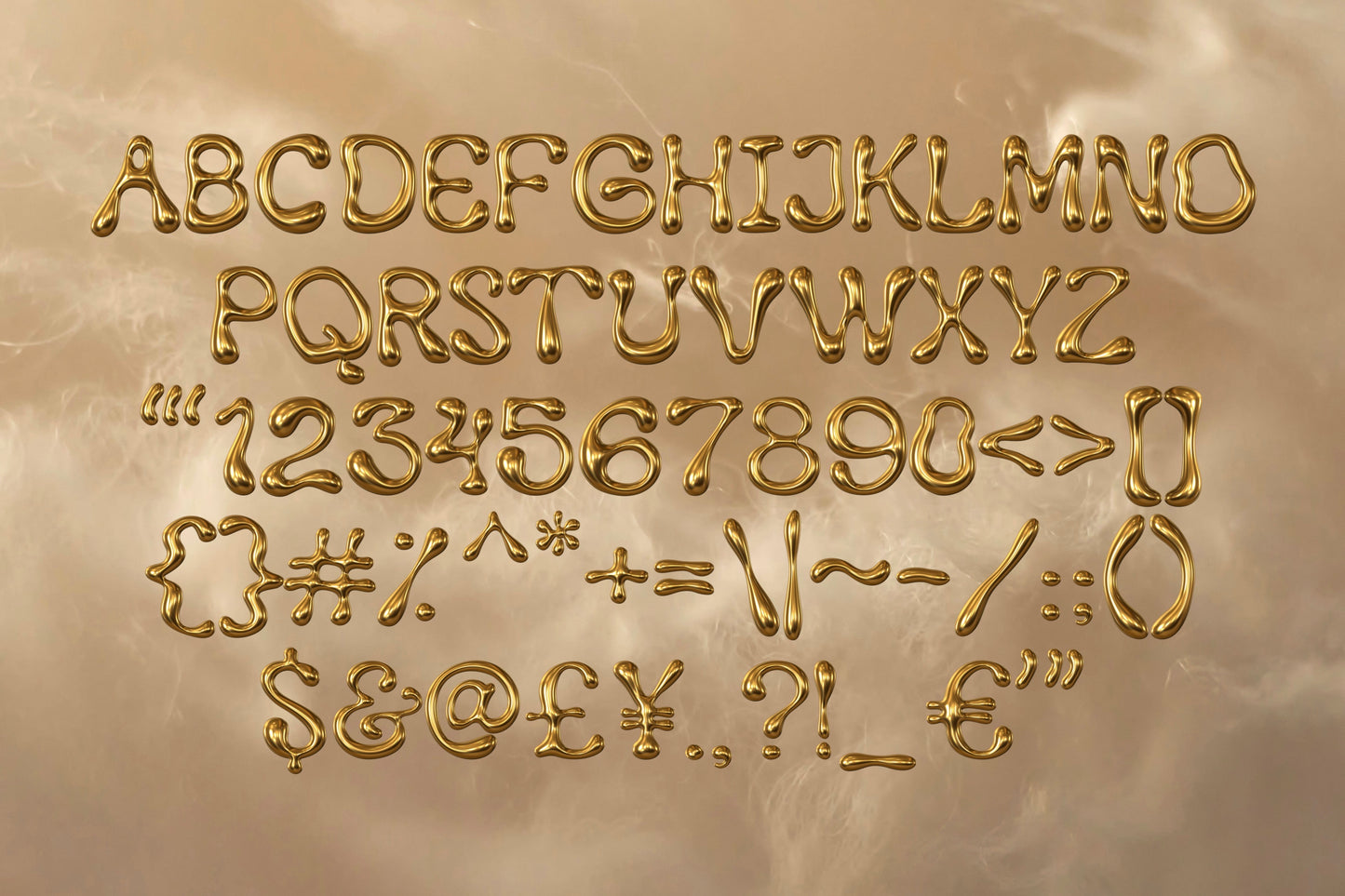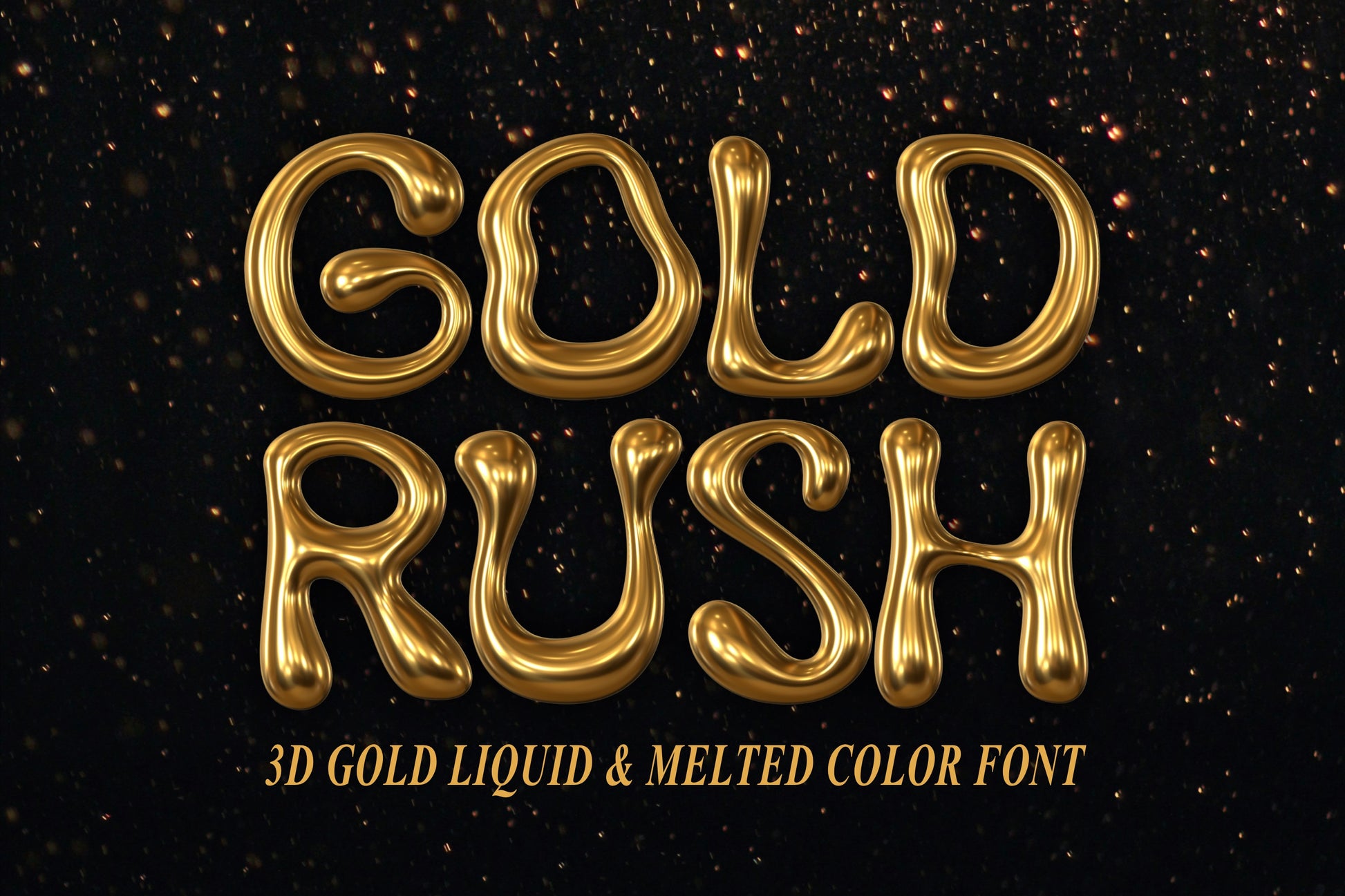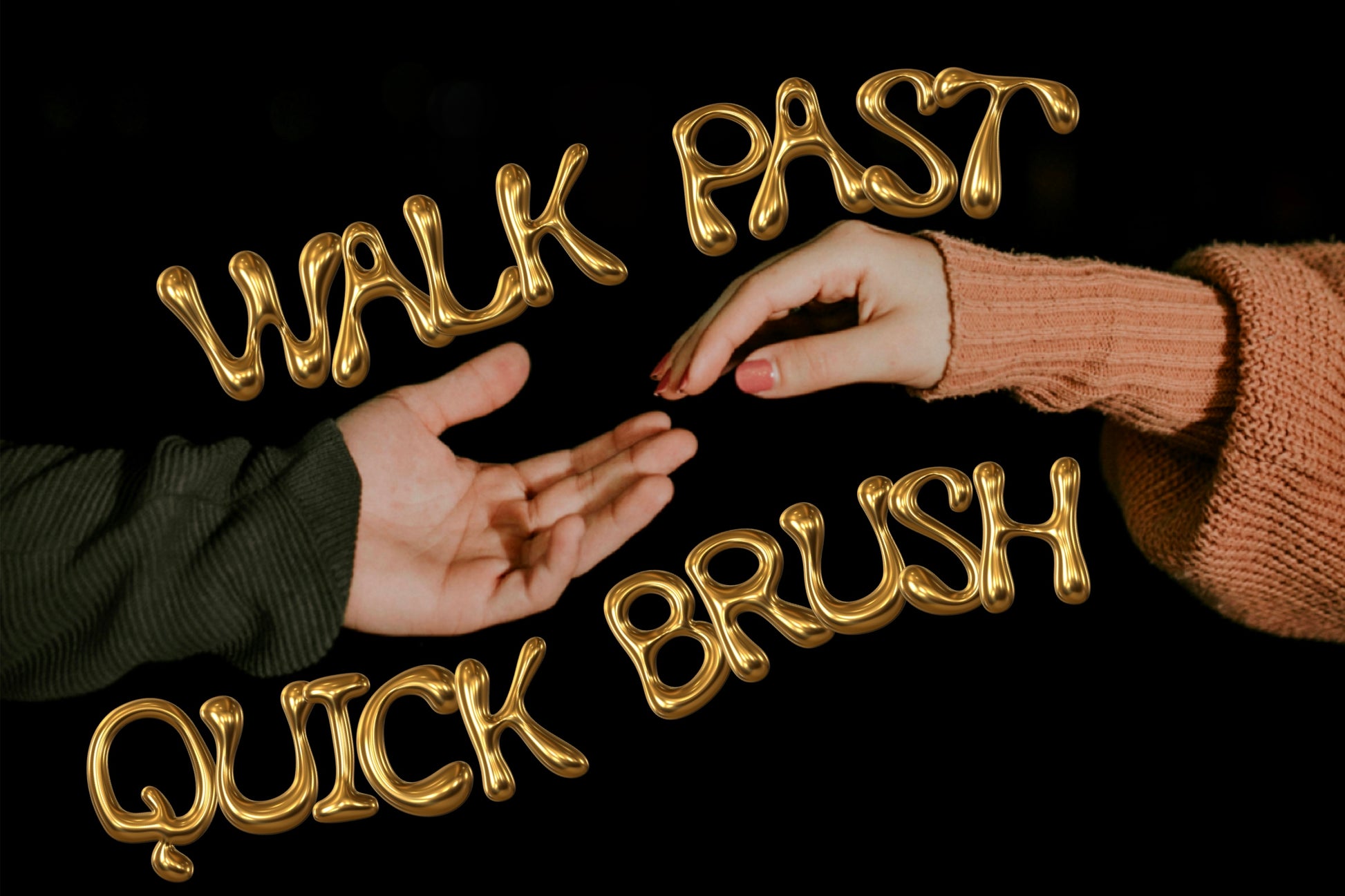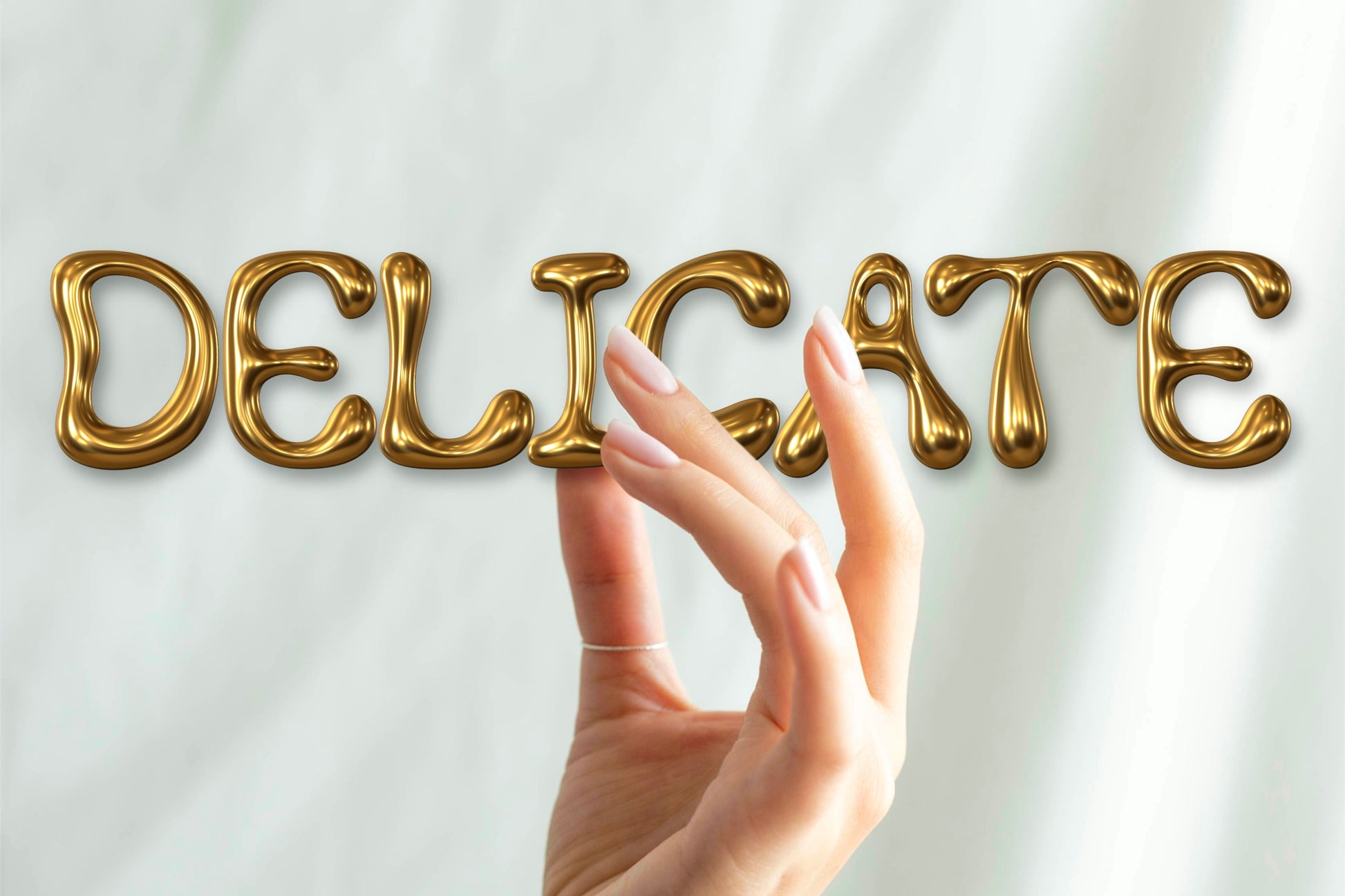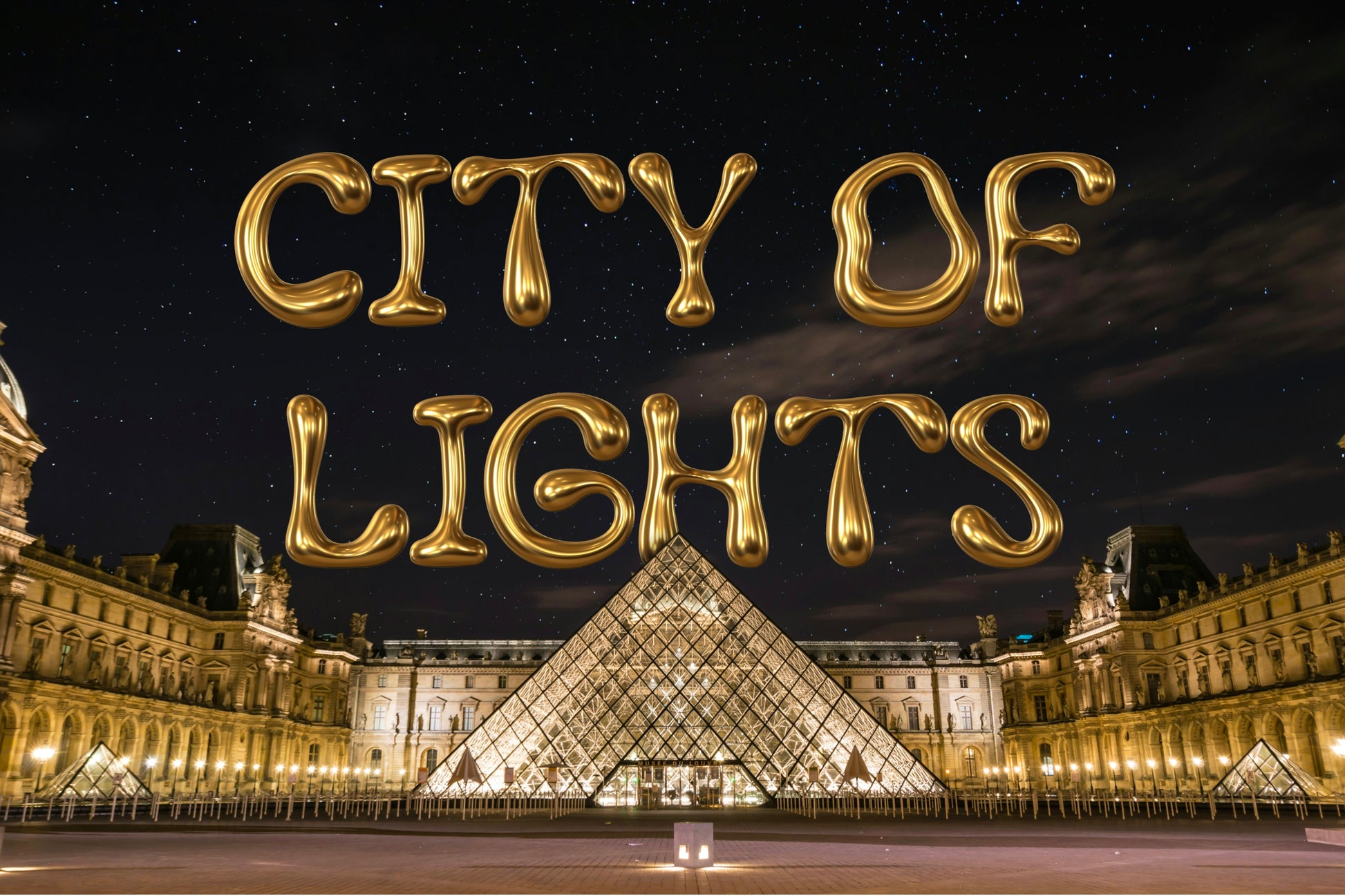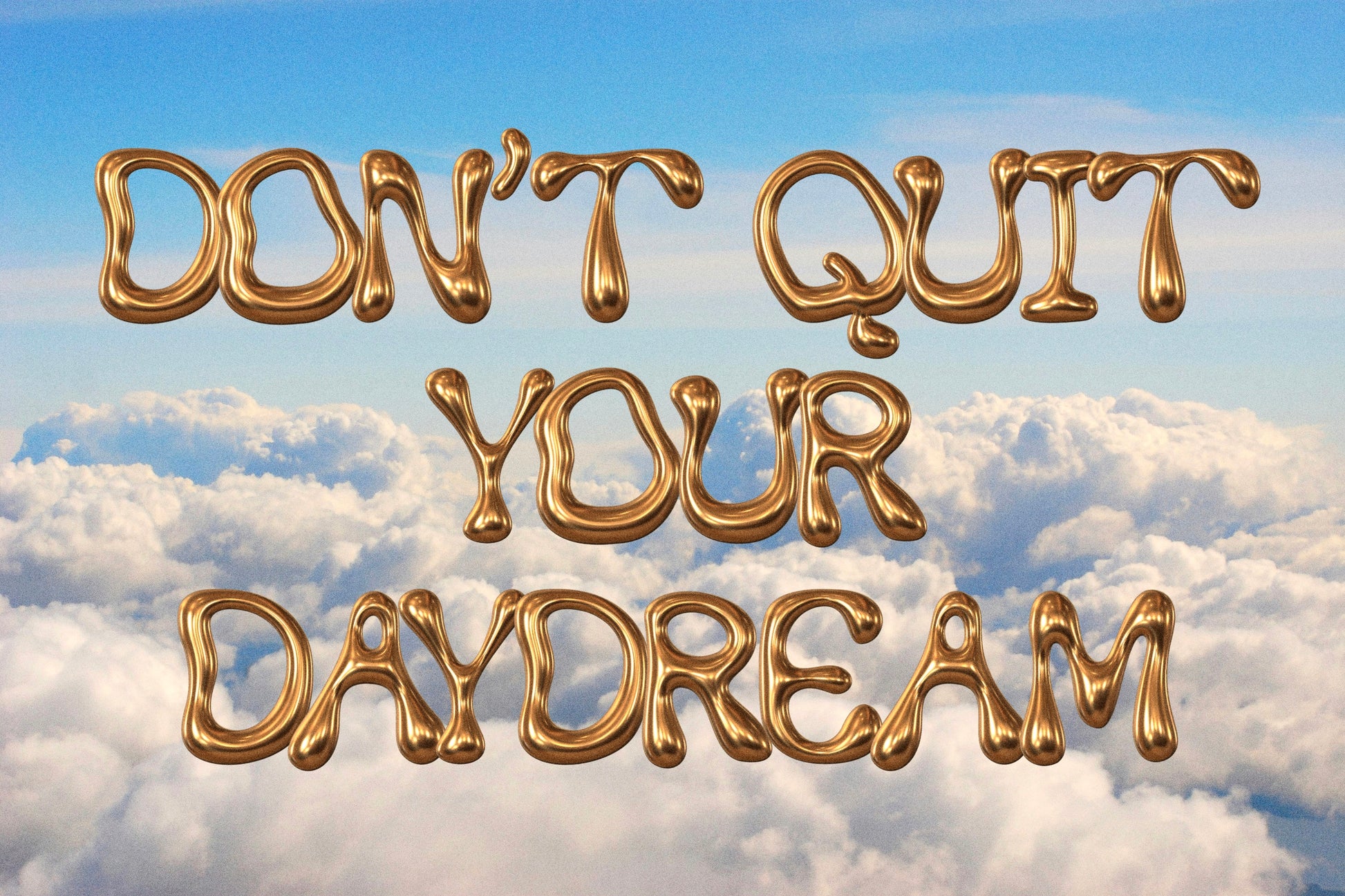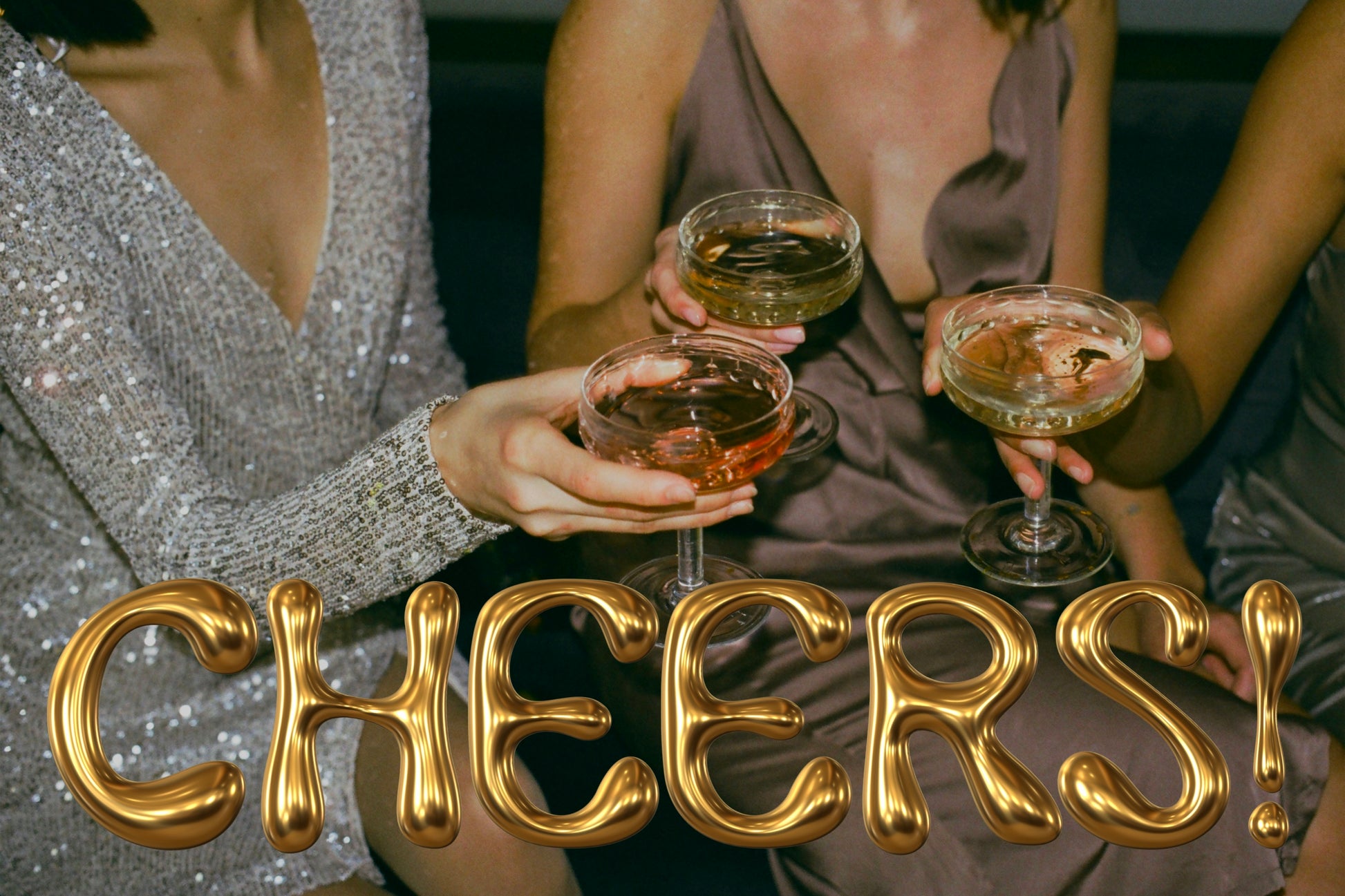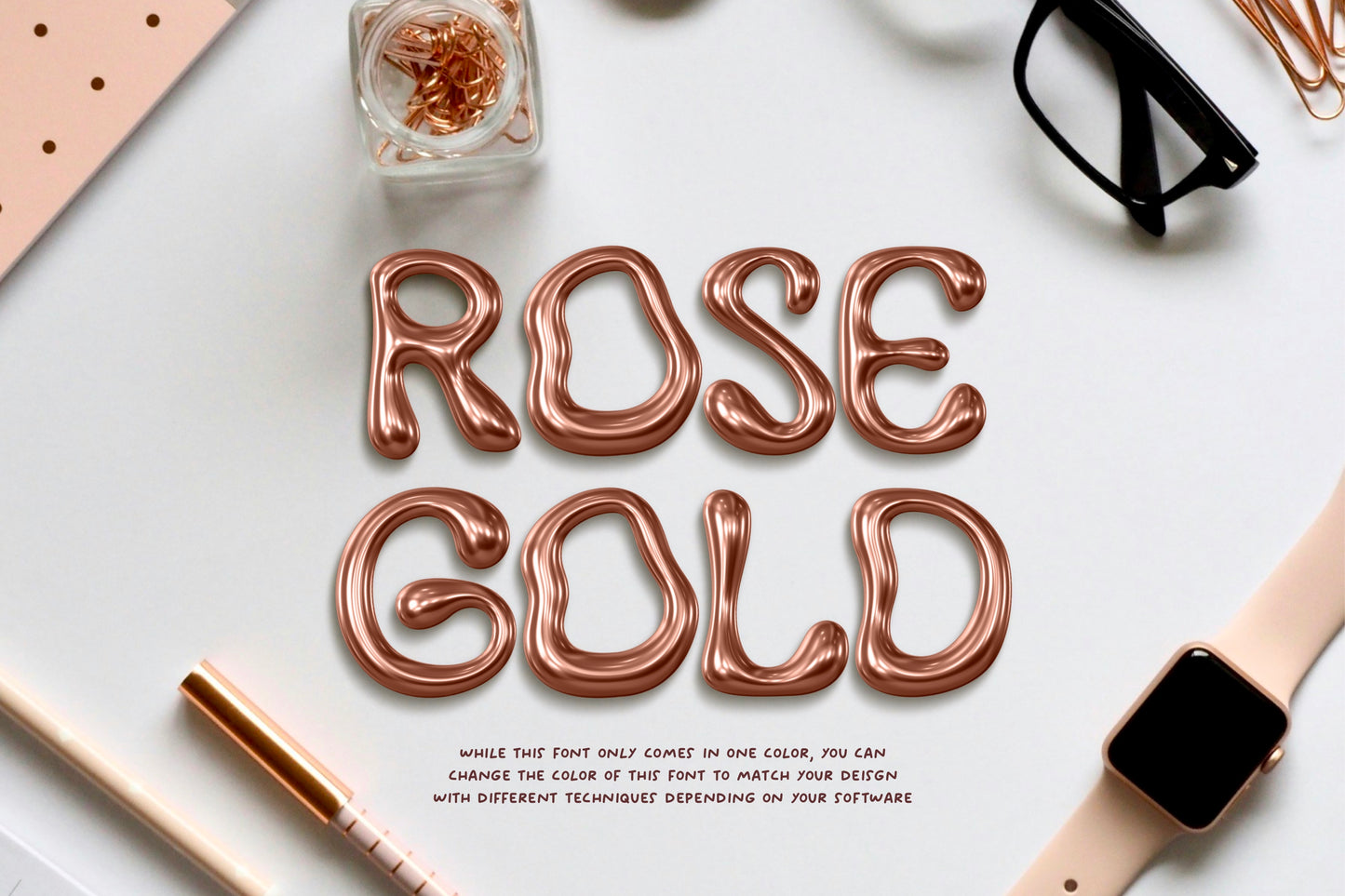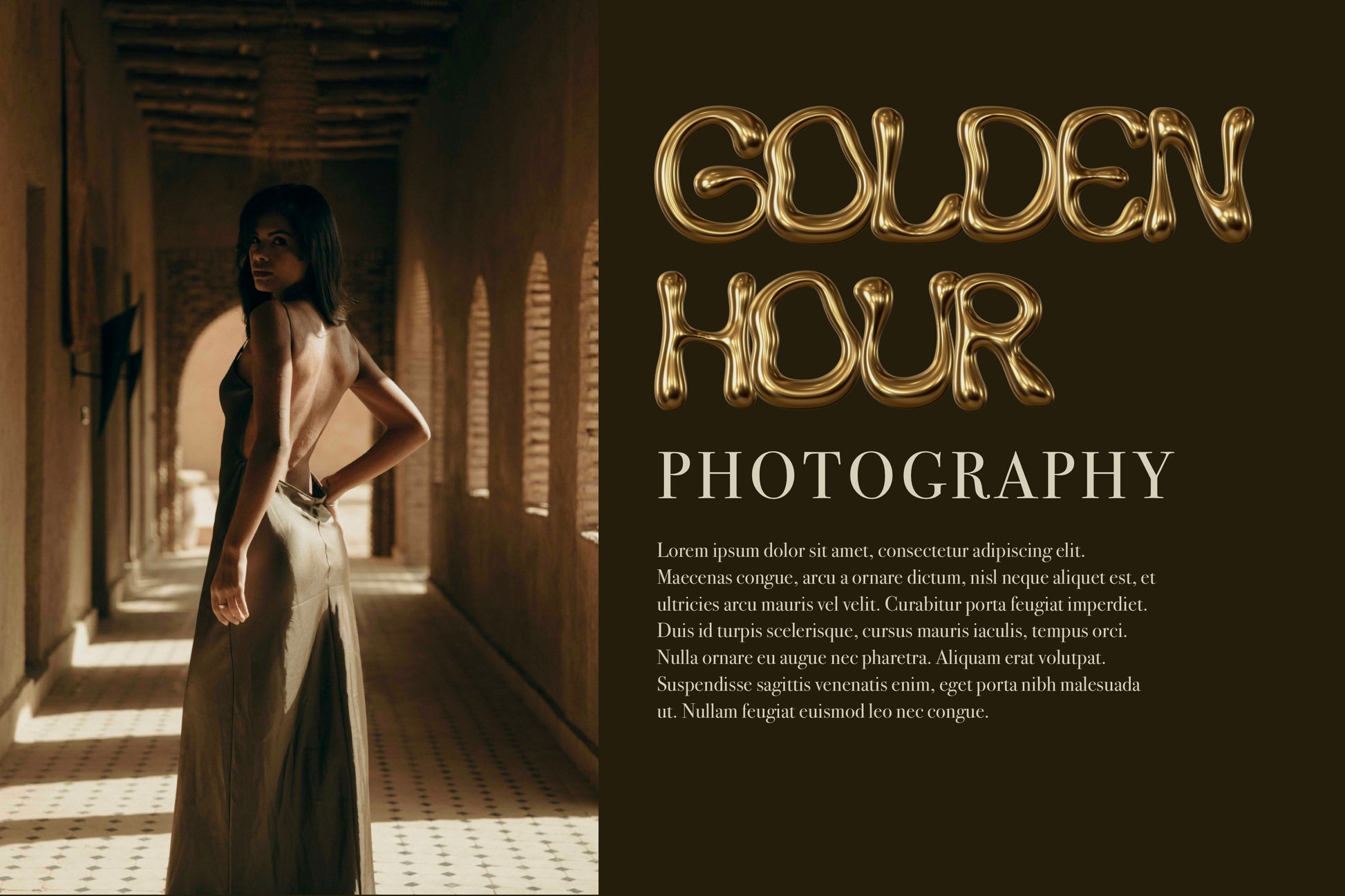
Gold Rush 3D SVG Color Font
Introducing the Gold Rush color font! This unique, 3D hand drawn font is a molten liquid gold font with lots of movement and personality. It would be absolutely perfect for sophisticated luxurious branding, or casual, playful designs on stickers, invitations, flyers, t-shirts, posters, magazines, and much more! This font’s versatility makes it universally appealing, and is sure to make any project become an eye-catching masterpiece.